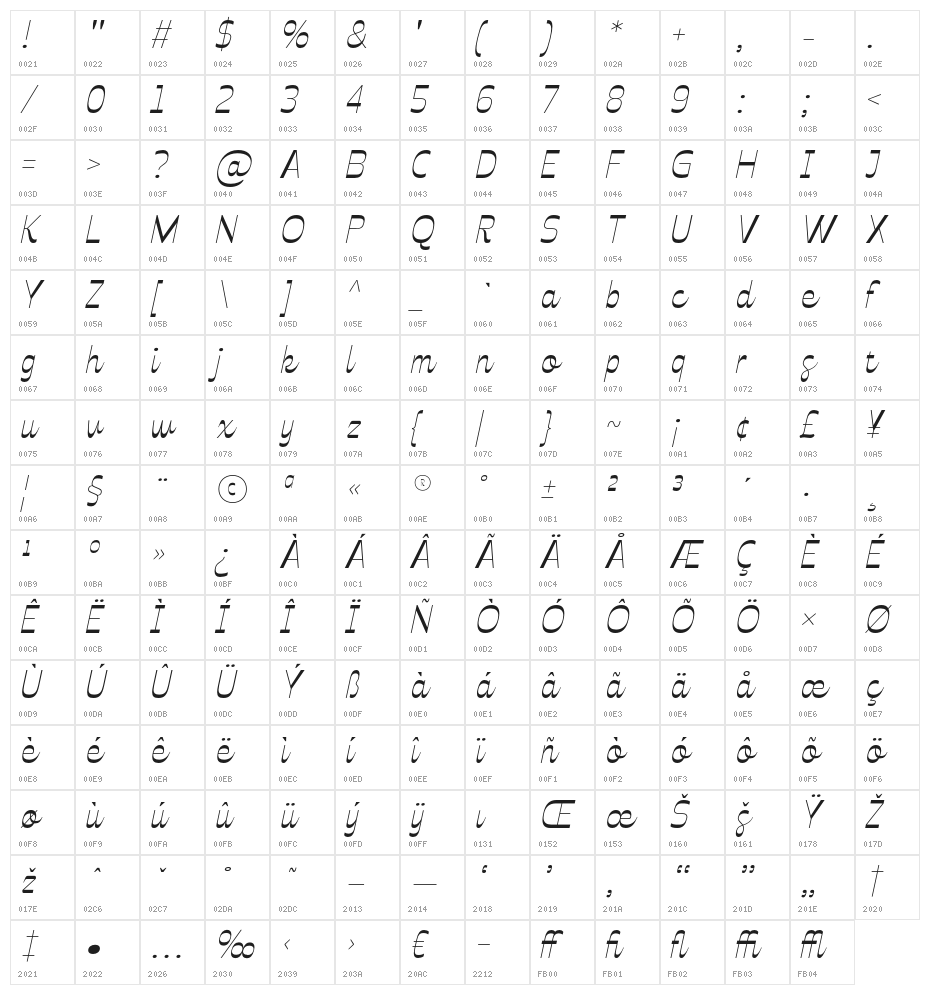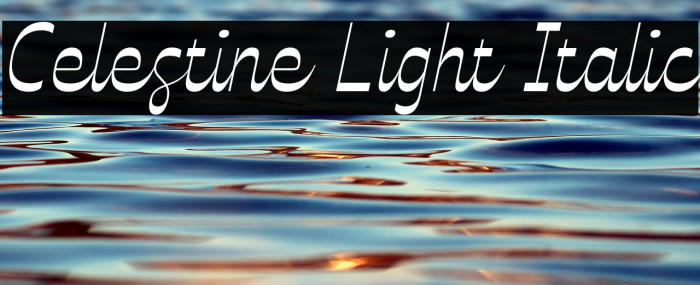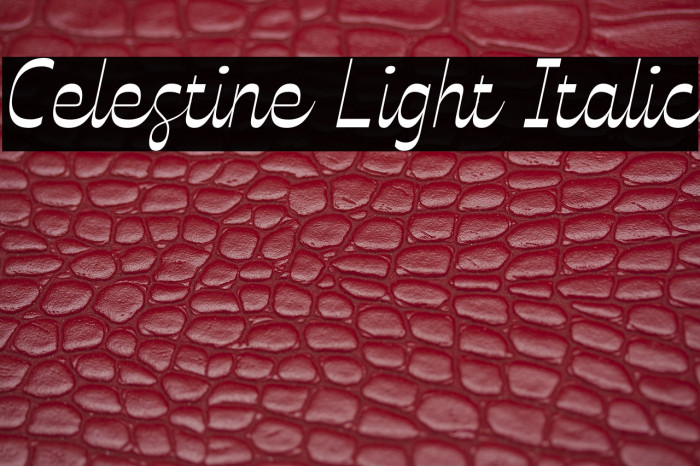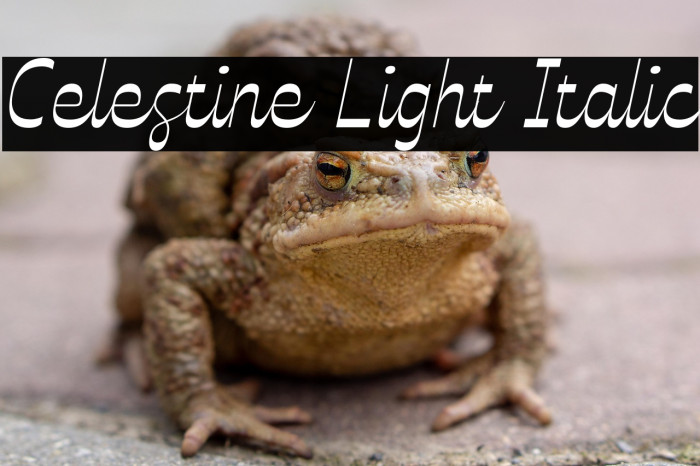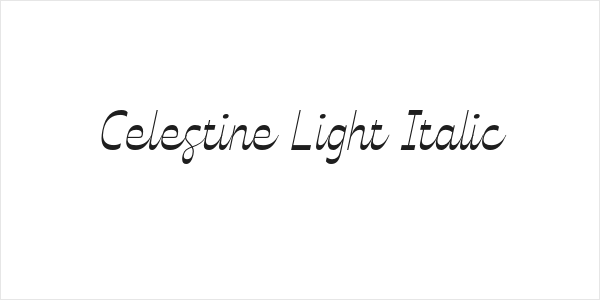
Celestine Light Italic Font
Celestine Light Italic Description
This font features a sleek and elegant design with a light and airy feel. The italicized characters add a sense of motion and fluidity, making it ideal for conveying sophistication and modernity. The uppercase letters are tall and slightly condensed, while the lowercase letters maintain a consistent flow with smooth curves. The numerals are clear and distinct, ensuring readability. Special characters are well-integrated, maintaining the overall aesthetic. The font's thin strokes and gentle curves create a harmonious balance, making it suitable for a variety of design applications.
| Proposed Projects | Ideal for fashion magazines, luxury branding, elegant invitations, and modern web design. |